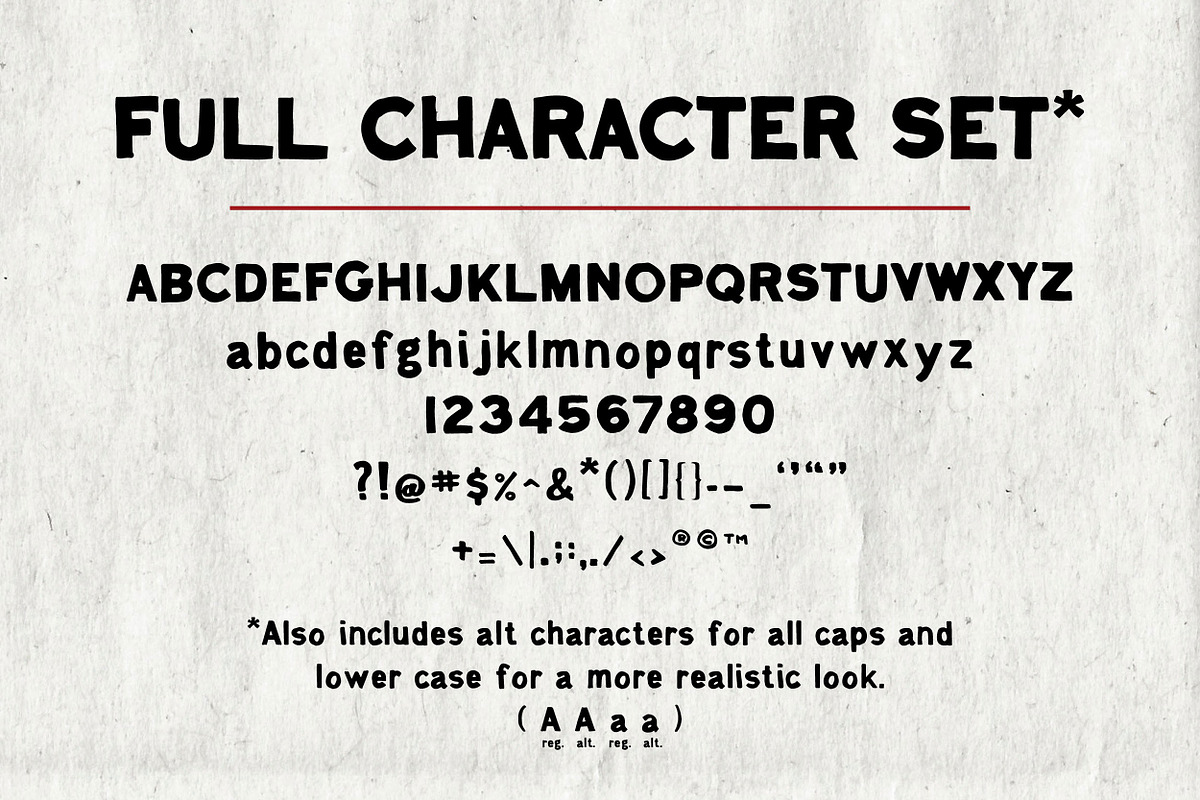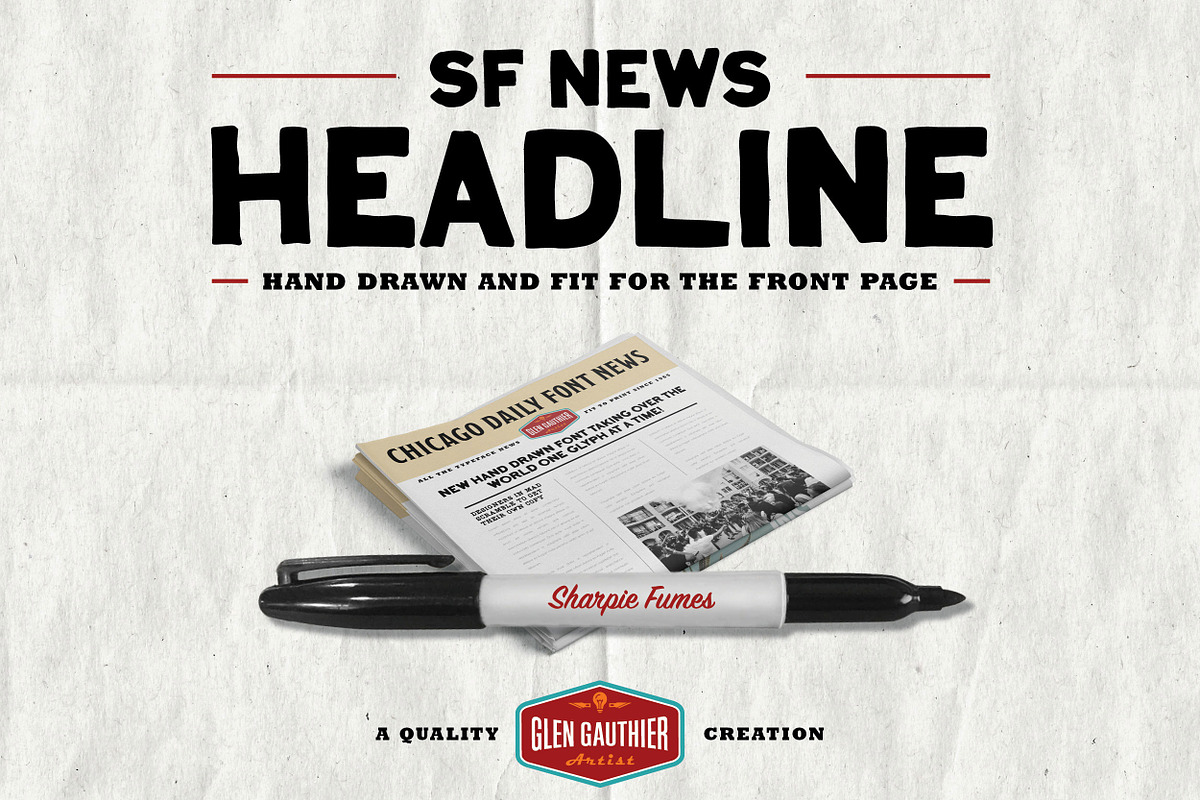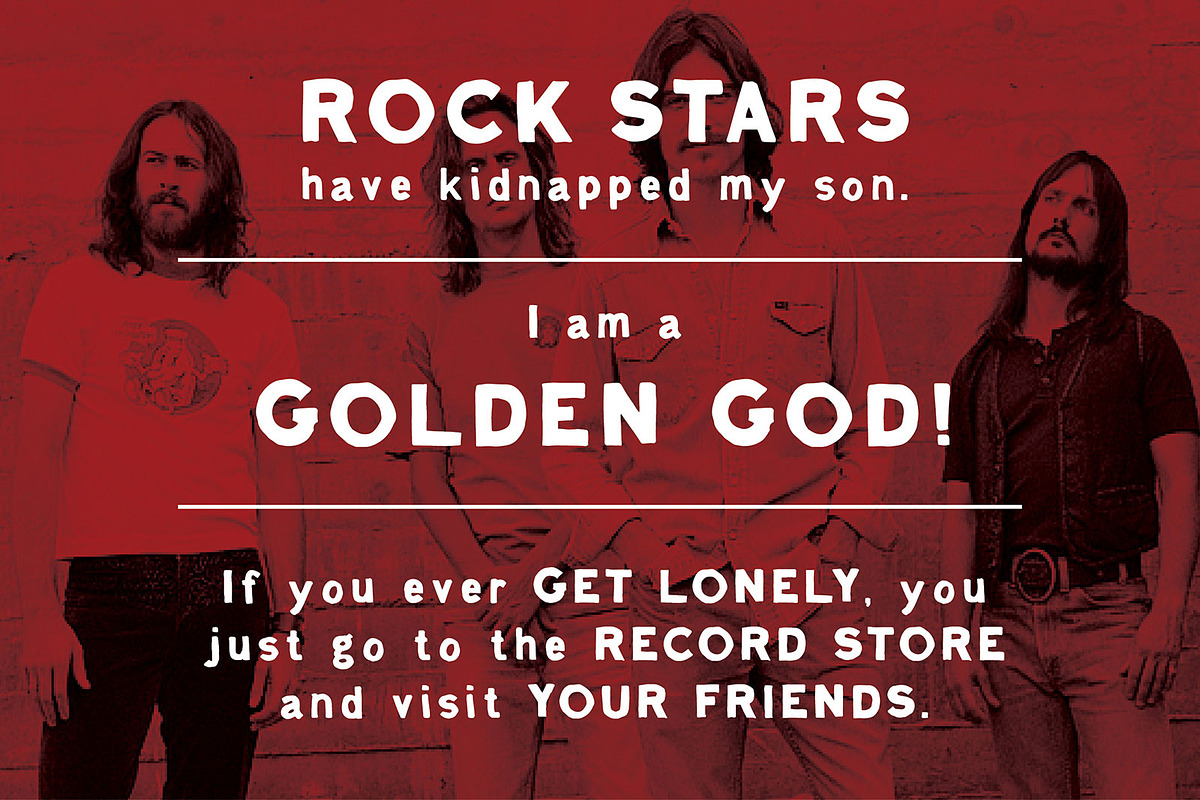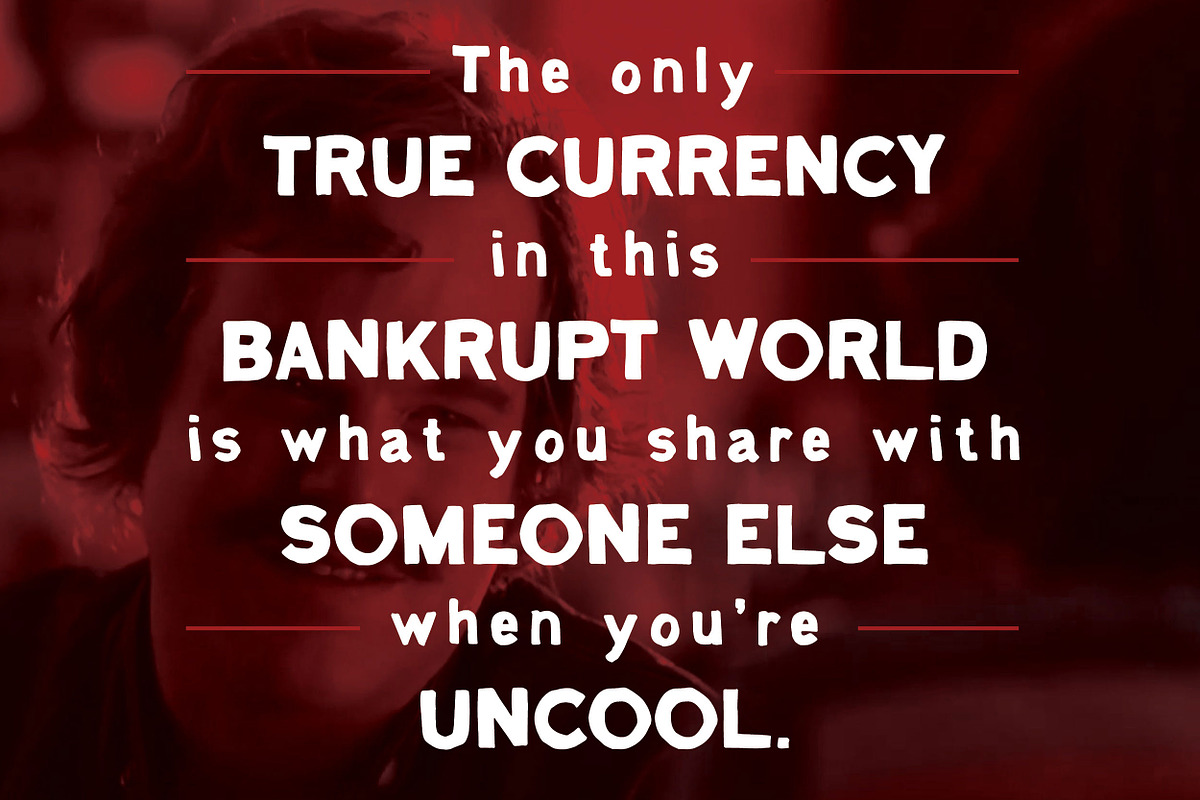
Sharpie Fumes News Headline
SF News Headline is a chunky, hand-drawn font I created with my trusty Sharpie pen, just like its Sharpie Fumes siblings. A no-nonsense sans serif font, perfect for headlines of course, but with the lower case characters, it can be used in many layout situations. As an art director, in both school and my early career, I did a lot of hand lettering for layouts. This font recreates that hand drawn feel, but you won't lose any brain cells while using it. Unless of course you're into edibles.